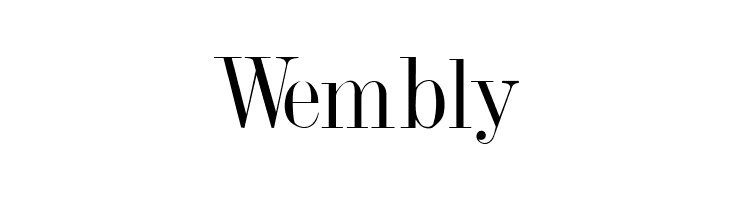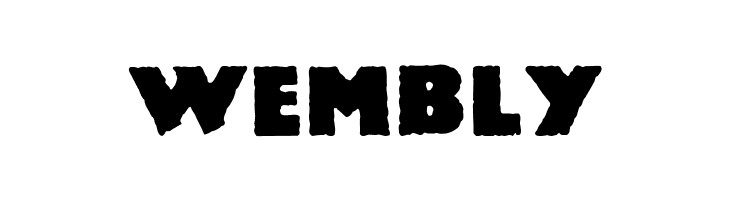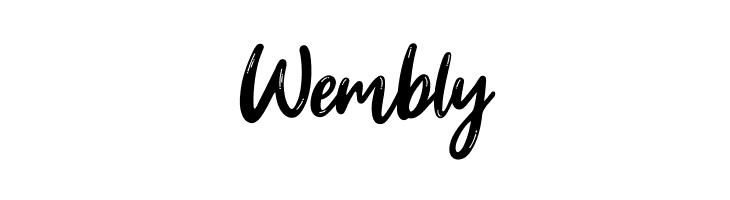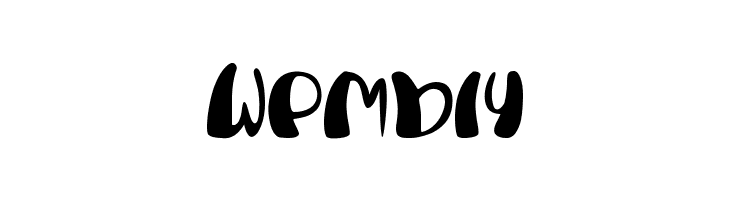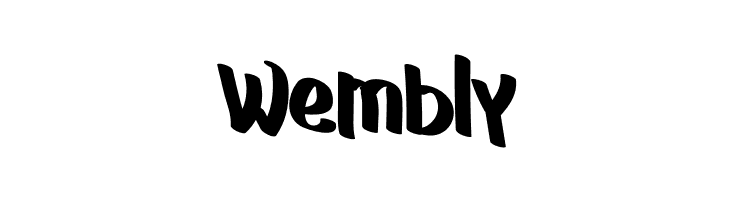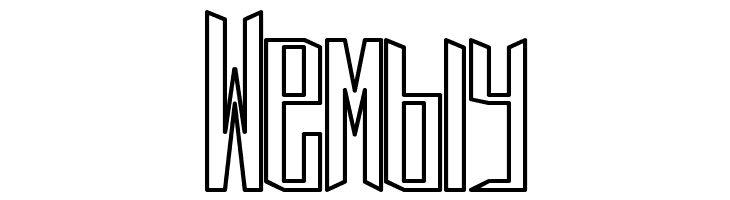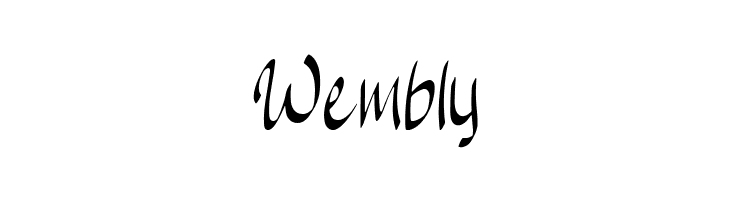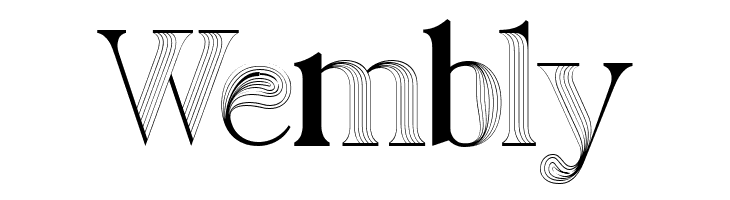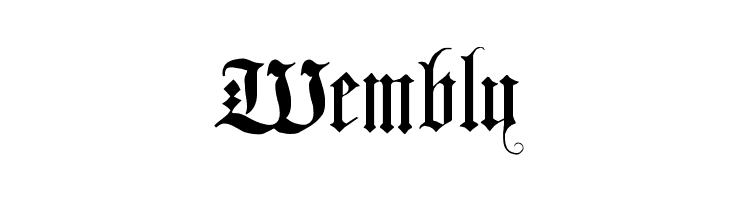
A bold, Gothic-inspired font with sharp, angular edges.
A bold, dotted font with a vintage, textured style.
A bold, decorative serif font with a unique dotted texture.
A bold, rounded font with a playful, modern style.
A playful, bold, and hand-drawn font with a whimsical style.
A bold, brush-style font with dynamic and fluid strokes.
A bold, textured font with a rugged, handcrafted appearance.
A modern, geometric font with clean lines and a structured design.
A classic italic serif font with elegant, flowing lines and moderate contrast.
A classic serif typeface with high contrast and elegant strokes.
A classic serif font with high contrast and elegant design.
A playful, casual handwritten font with smooth, rounded edges and irregular letterforms.
A bold, ornate Blackletter font with intricate medieval design.
A geometric, angular font with a futuristic and digital aesthetic.
A bold, playful font with cat-like features integrated into each character.
A pixelated, blocky font with a retro digital aesthetic.
A playful, bold, and hand-drawn font with whimsical curves and thick strokes.
A futuristic, geometric font with bold, parallel lines and rounded edges.
A modern script font with elegant flourishes and consistent stroke weight.
A playful, handwritten font with bold strokes and a casual, organic feel.
A flowing, elegant script font with bold, sweeping uppercase and smooth, slanted lowercase letters.
A lively, handwritten font with fluid, expressive strokes.
A bold, playful font with rounded, hand-drawn style characters.
A bold, decorative font with intricate line detailing and a modern twist.
A bold, geometric font with sharp angles and a modern, dynamic style.
A modern, italic font with angular, geometric letterforms and a dynamic slant.
A geometric, modern font with clean lines and sharp angles.
A bold, playful font with characters enclosed in oval shapes, ideal for decorative use.
A decorative, tall, and narrow font with intricate detailing.
A lively and expressive script font with a handwritten feel.